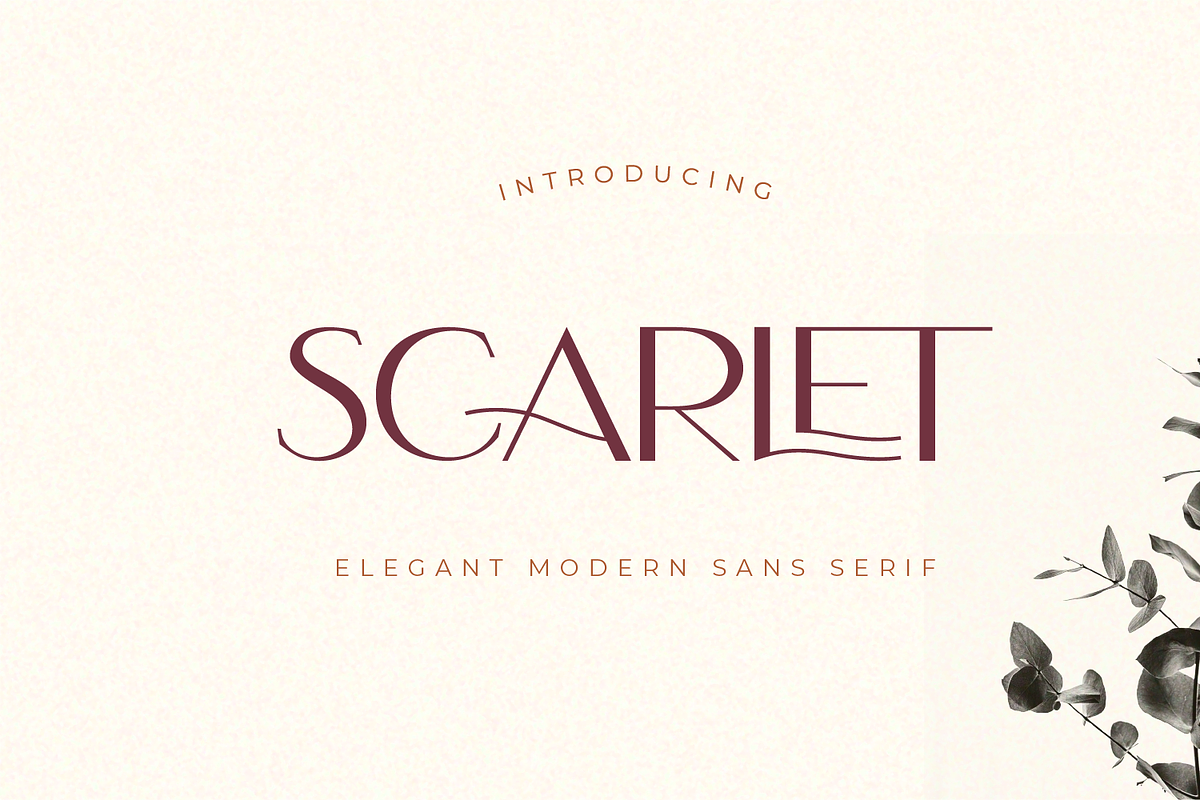
Scarlet | Minimal Elegant Font Free Download
Please note, to use this font for commercial purposes, you must purchase the full version. Scarlet is a sleek and refined font that embodies minimalism and elegance. Perfect for high-end branding, invitations, logos, and modern design projects, this font adds a sophisticated, timeless touch to any design. Whether you're creating a luxurious brand identity or designing an elegant event invitation, Scarlet brings a sense of style and simplicity to your work. Test it out and enjoy free download access for personal use. Experience the beauty and elegance of Scarlet | Minimal Elegant Font Free Download before purchasing the commercial license. Elevate your designs with the refined charm of Scarlet.